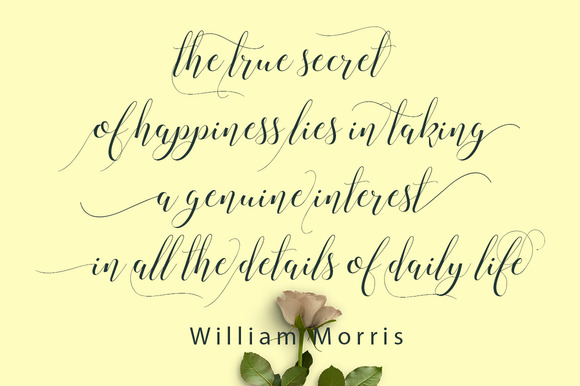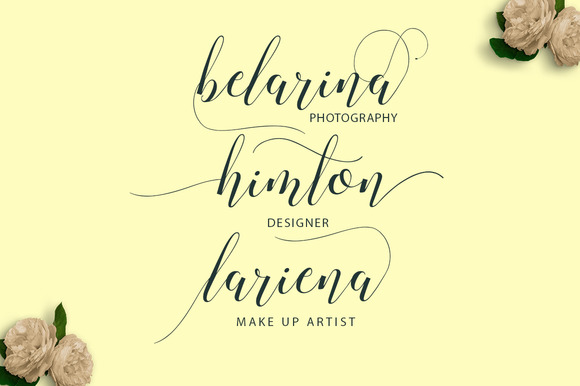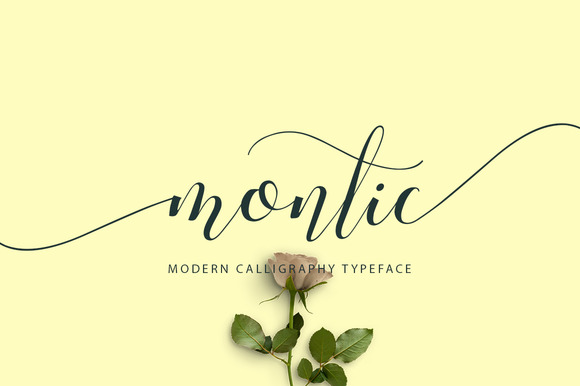
Montic Script Font
Montic is a hand calligraphy, simple, smooth, modern and clasic, calligraphy wavy, which was created to meet the needs of your next design project. Montic, Can used for various purposes. such as the title, signature, logo, correspondence, wedding invitations, letterhead, signage, labels, newsletters, posters, badges, etc.
| Classification: | Calligraphy Fonts, Handwritten Fonts, Script Fonts |